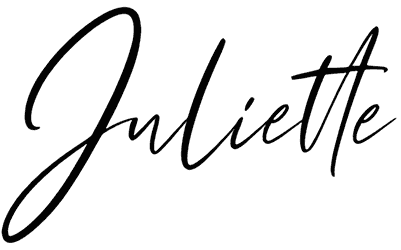
Juliette Font
For sharing a friendly, warm, intimate, and especially feminine vibe, an incredible autograph font with a curly layout is needed to make the striking design in many cards, posters, quotes, brands, and more. The Juliette font is here to assist you in developing your creative profession with a mixture of uppercase and lowercase letters. Just know that its sweet interconnection makes it a bit unreadable.